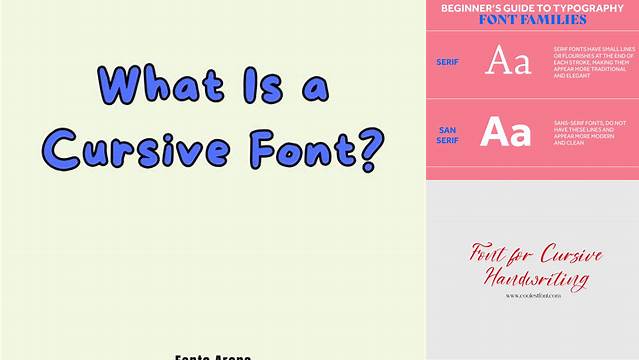
Elegant Cursive Fonts: A Google Fonts Guide
Hey guys! Are you looking to spice up your designs with a touch of elegance and personality? Well, you've come to the right place! Let's dive into the world of cursive fonts available on Google Fonts. Cursive fonts are those stylish scripts that mimic handwriting, adding a personal and artistic flair to your projects. Whether you're crafting wedding invitations, designing a logo, or just want to make your website stand out, understanding the nuances of cursive fonts can make a huge difference. Google Fonts offers a vast collection, each with its unique charm. So, grab a cup of coffee, and let's explore how to make the most of these beautiful fonts!
What are Cursive Fonts?
Cursive fonts, at their core, are designed to replicate the fluid, connected strokes of human handwriting. Unlike blocky or sans-serif fonts that emphasize clarity and structure, cursive fonts prioritize flow and aesthetics. These fonts often feature loops, swashes, and varying stroke weights, creating a sense of movement and rhythm. The beauty of cursive fonts lies in their ability to evoke emotions and set a specific tone, from playful and informal to sophisticated and refined. Think about the last time you saw a beautifully handwritten letter or a professionally designed invitation. The font likely played a significant role in conveying the message and creating a lasting impression. In the digital age, cursive fonts offer a way to infuse that same personal touch into our designs, bridging the gap between technology and human artistry.
When selecting a cursive font, it's crucial to consider the context and purpose of your project. A whimsical, looping script might be perfect for a children's book, but it could feel out of place on a corporate website. Similarly, an overly ornate cursive font might look stunning on a wedding invitation but become illegible in smaller sizes or on screens with lower resolutions. Understanding the characteristics of different cursive styles and how they interact with your overall design is key to achieving the desired effect. Moreover, accessibility should always be a priority. While cursive fonts can add a touch of elegance, readability should never be sacrificed. Choosing fonts with clear letterforms and sufficient spacing can help ensure that your message is accessible to all viewers.
Top Cursive Font Families on Google Fonts
Google Fonts is a treasure trove of amazing typefaces, and when it comes to cursive fonts, you're spoiled for choice! Here are a few standouts to get you started:
1. Pacifico
Pacifico is a friendly and casual brush script font inspired by the American surf culture of the 1950s. Its rounded forms and slightly tilted posture give it a playful and approachable feel, making it ideal for logos, headings, and short bursts of text. Imagine using Pacifico for a beach-themed restaurant's menu or a fun, summer-themed poster. It's the kind of font that instantly puts a smile on your face.
2. Lobster
Lobster is a bold and condensed script font with a retro vibe. Its tightly spaced letters and exaggerated ascenders and descenders give it a distinctive and eye-catching appearance. Lobster is a popular choice for headlines, posters, and signage, where it can make a statement without being too overwhelming. Think of vintage diners or classic movie posters – Lobster fits right in.
3. Great Vibes
Great Vibes is an elegant and flowing calligraphy script that exudes sophistication and grace. Its delicate letterforms and elaborate swashes make it perfect for wedding invitations, greeting cards, and other formal occasions. If you're aiming for a touch of luxury and refinement, Great Vibes is an excellent choice. Picture it on a beautifully designed wedding program or a high-end spa brochure.
4. Dancing Script
Dancing Script is a lively and informal script font that mimics the natural rhythm of handwriting. Its varying stroke weights and playful letterforms give it a dynamic and energetic feel. Dancing Script is well-suited for headings, subheadings, and short paragraphs of text where you want to convey a sense of personality and warmth. Envision it on a blog about lifestyle or a quirky cafe menu.
5. Cookie
Cookie is a sweet and charming script font with a retro aesthetic. Its rounded letterforms and slightly condensed proportions give it a friendly and approachable feel. Cookie is perfect for logos, packaging, and branding materials that aim to evoke a sense of nostalgia and warmth. Think of a vintage bakery or a cozy coffee shop – Cookie would be right at home.
6. Kaushan Script
Looking for something a bit more dynamic? Kaushan Script is your go-to! This font has a bold and energetic feel, perfect for making a statement. It's great for headlines, social media graphics, and anywhere you want to grab attention.
7. Italianno
For a touch of old-world elegance, check out Italianno. This font is all about sophistication, making it ideal for wedding invites, certificates, and anything that needs a formal, refined touch. Its graceful curves and classic style will instantly elevate your design.
How to Use Cursive Fonts Effectively
Okay, you've picked out a stunning cursive font. Now what? Here are some key tips to make sure you use it effectively:
1. Readability is Key
While cursive fonts are beautiful, they can sometimes be tricky to read. Always prioritize readability. Use cursive fonts sparingly, and make sure they're large enough to be easily legible. Pair them with a simple, sans-serif font for body text to ensure a comfortable reading experience.
2. Contrast is Your Friend
Cursive fonts often look best when paired with a contrasting font. A clean, sans-serif font like Arial or Helvetica can provide a visual balance and prevent your design from feeling too cluttered. Experiment with different font pairings to find what works best for your project.
3. Size Matters
Pay attention to the size of your cursive font. Using a cursive font too small can make it difficult to read, while using it too large can overwhelm your design. Adjust the size of your font to create a harmonious balance with the other elements on your page.
4. Kerning and Leading
Kerning (the space between letters) and leading (the space between lines) can significantly impact the readability of your cursive font. Adjust these settings to ensure that your text is easy to read and visually appealing. A little tweaking can go a long way!
5. Consider the Context
Think about the context in which your cursive font will be used. A formal event like a wedding calls for an elegant and refined script, while a casual blog post might benefit from a more playful and informal font. Choose a font that aligns with the overall tone and message of your project.
6. Test, Test, Test!
Before finalizing your design, test your cursive font on different devices and screen sizes. What looks great on your computer might not look as good on a mobile phone. Testing ensures that your font is legible and visually appealing across all platforms.
Pairing Cursive Fonts with Other Fonts
Font pairing can be a game-changer. Here are some ideas to get your creative juices flowing:
- Cursive + Sans-Serif: This is a classic combo! Pair a fancy cursive font with a clean sans-serif like Open Sans or Montserrat for a balanced look.
- Cursive + Serif: If you're feeling bold, try pairing a cursive font with a serif font like Merriweather or Playfair Display. This can create a sophisticated and timeless feel.
- Cursive + Slab Serif: For a more modern and edgy look, combine a cursive font with a slab serif like Roboto Slab or Arvo. This pairing is great for logos and branding.
Accessibility Considerations
It's super important to think about accessibility when using cursive fonts. Not everyone finds them easy to read, so keep these tips in mind:
- Use sparingly: Don't use cursive fonts for large blocks of text. Stick to headings or short phrases.
- Ensure contrast: Make sure there's enough contrast between the font color and the background.
- Consider font size: Make the font large enough to be easily readable.
So, there you have it! A deep dive into the world of cursive fonts on Google Fonts. Remember, the key is to experiment and find what works best for your specific project. With a little creativity and attention to detail, you can use cursive fonts to add a touch of personality and elegance to your designs. Happy designing, folks!